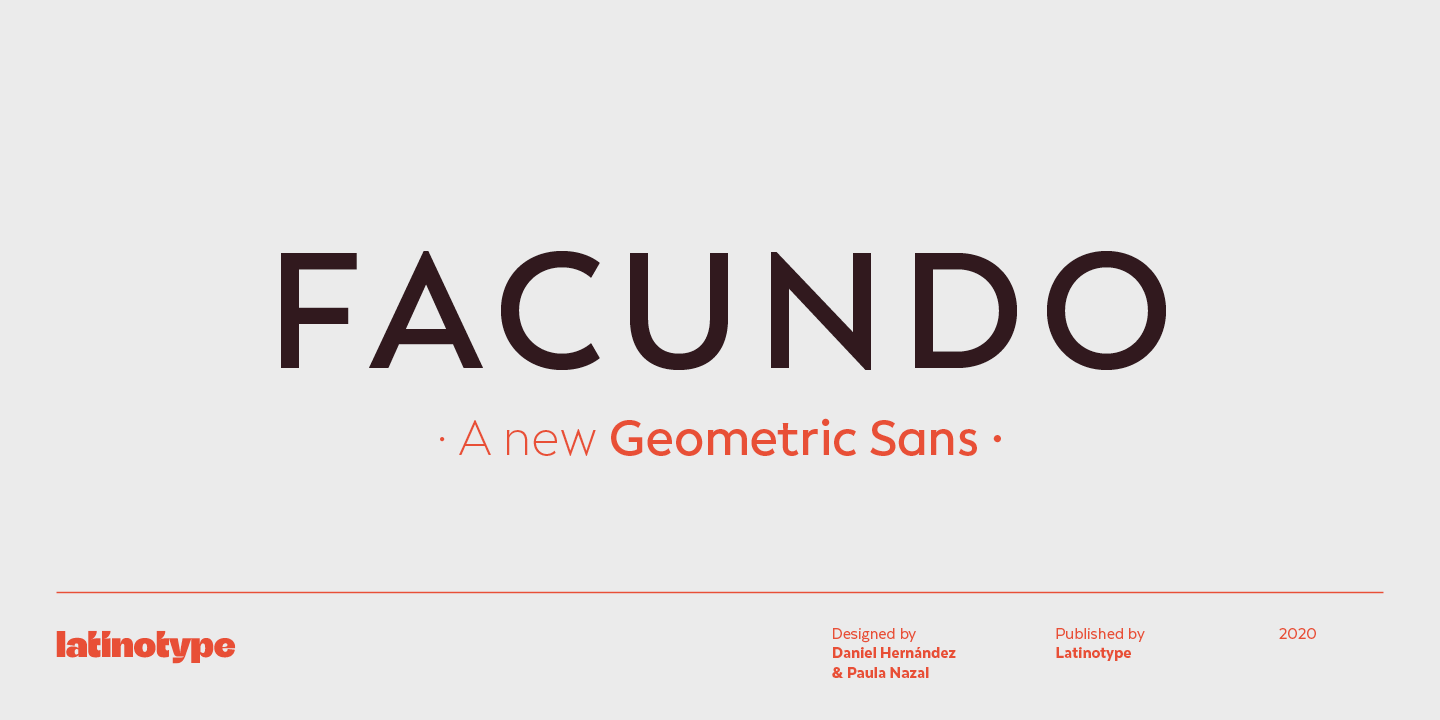
Facundo Font excels in Latin American restaurant branding, tango dance studio materials, Hispanic cultural center communications, artisanal craft workshops, traditional festival promotions, authentic cuisine packaging, passionate lifestyle brands, and vibrant community event graphics. This expressive typeface brings Latin warmth and cultural authenticity to any project requiring passionate, spirited typography with genuine Hispanic character and emotional resonance.
What makes Facundo Font exciting is its perfect capture of Latin passion and cultural vibrancy that embodies the warmth, creativity, and expressive spirit of Hispanic heritage and community traditions. The font features dynamic letterforms with flowing curves and energetic proportions that mirror the rhythmic movement of Latin music and dance while maintaining excellent readability for contemporary applications. Its passionate character and cultural authenticity create an immediate connection to Latin American traditions and community values, making it perfect for brands celebrating Hispanic culture, family traditions, and artisanal craftsmanship. The typeface's spirited appeal ensures instant recognition of cultural pride and authentic Latino heritage.
The Facundo Font family includes Regular, Bold, Light, Italic, and Display variants, each maintaining the signature Latin character while offering different levels of cultural expression and visual impact. The family features extensive Spanish language support, decorative elements, and cultural symbols that enhance its versatility for Hispanic community and Latin American branding projects. These variants provide comprehensive tools for creating authentic Latino typography with passionate cultural appeal.
Whether you're designing for Hispanic businesses, Latin cultural organizations, or passionate lifestyle brands, Facundo Font Free Download delivers the cultural authenticity that defines genuine Latin American typography. Its combination of expressive character and traditional warmth makes it perfect for communicating cultural pride, family values, and passionate creativity with authentic Latino spirit and vibrant community energy.